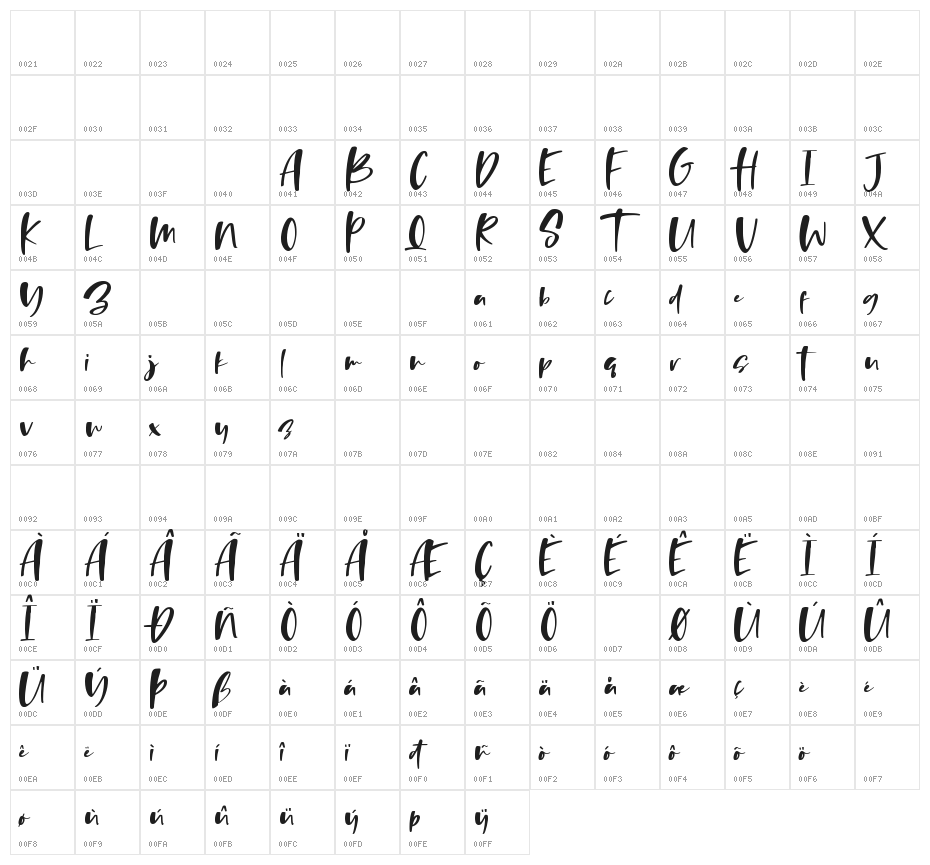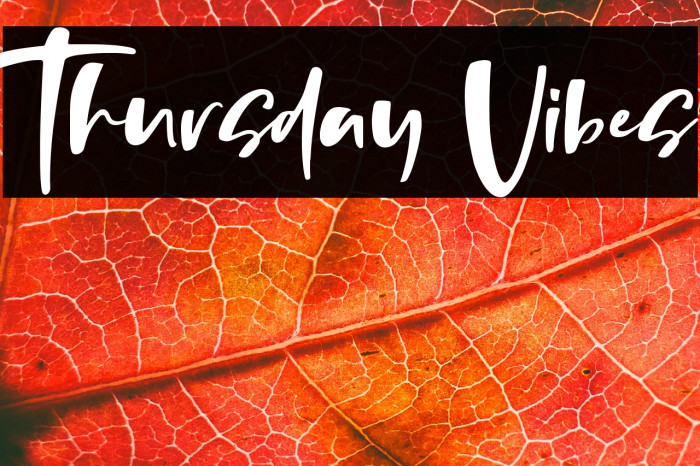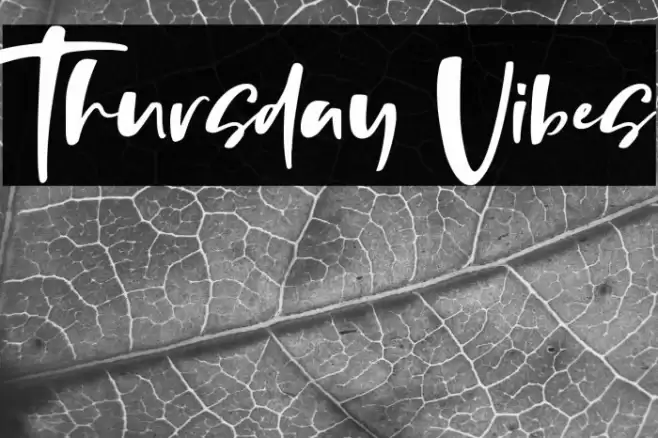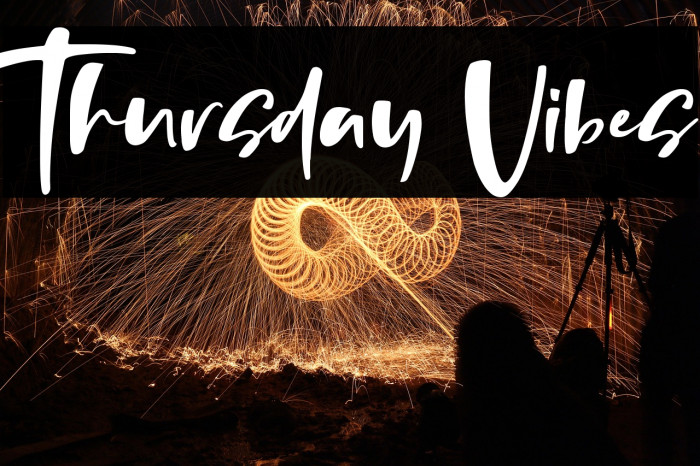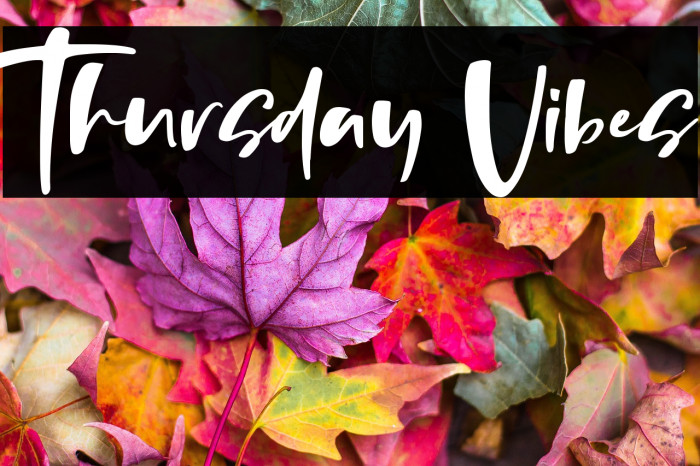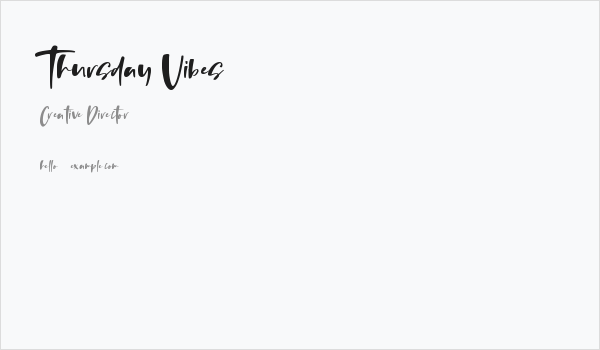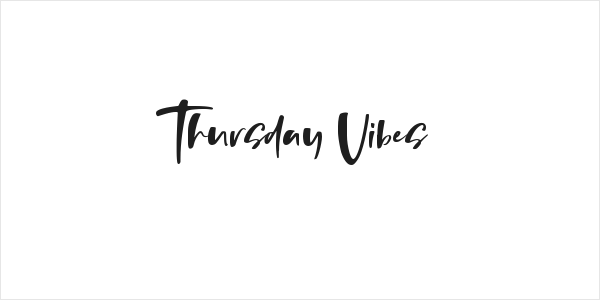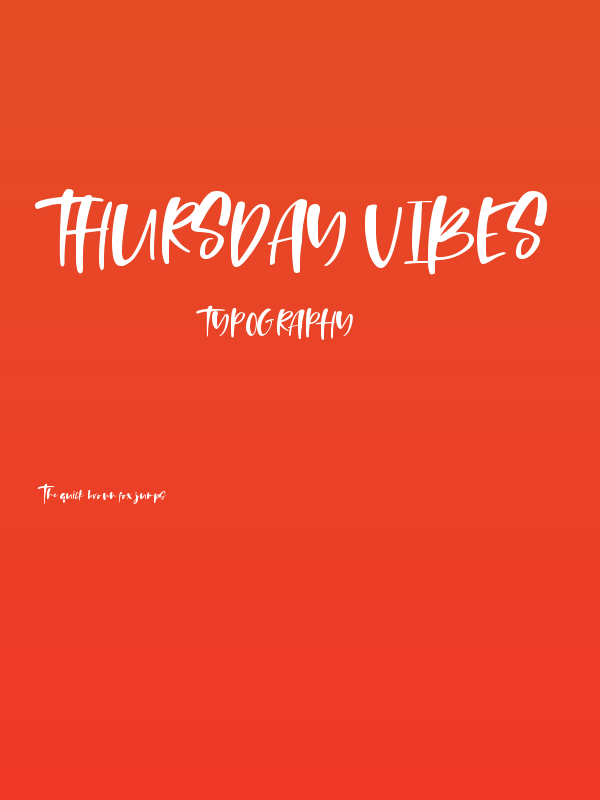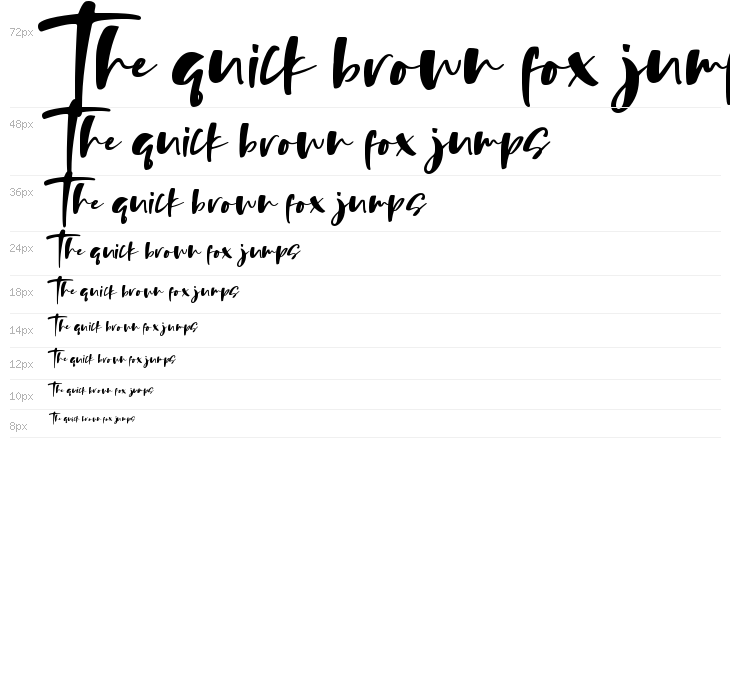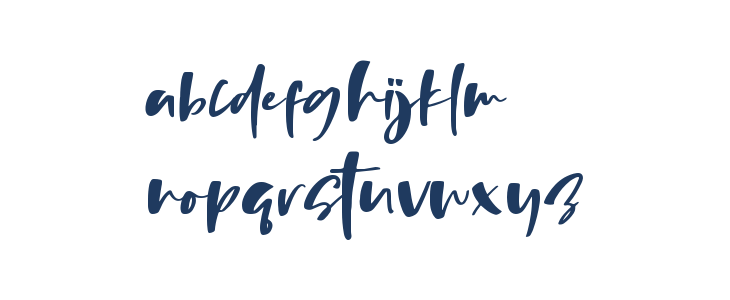
Thursday Vibes Font
Thursday Vibes Description
This font exudes a lively and energetic vibe with its bold, brush-like strokes that give it a handwritten appearance. The letters are slightly slanted, adding a dynamic flow to the text. The uppercase characters are tall and commanding, while the lowercase letters maintain a consistent style with playful loops and curves. The overall look is casual yet stylish, making it perfect for projects that require a personal touch. The font's unique character shapes and varying line thicknesses contribute to its expressive and artistic feel.
| Proposed Projects | Ideal for greeting cards, social media graphics, branding, and creative posters. |